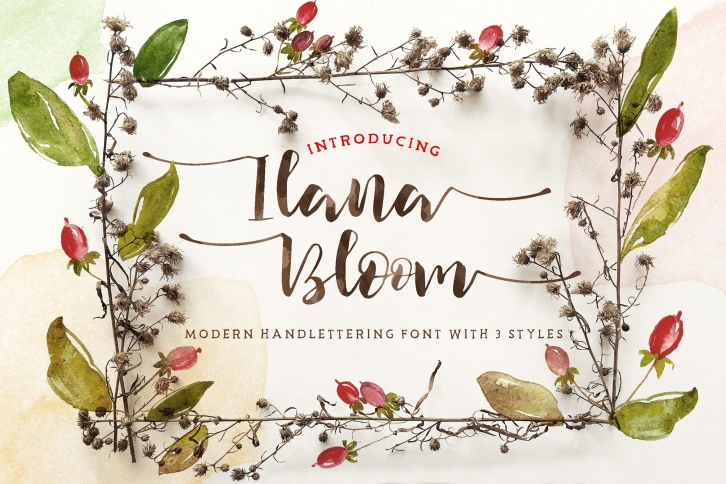
Ilana Bloom is a feminine, modern hand lettering typeface that combines script, swashes and swirl. With a curly and neat style, Ilana Bloom can be easily mixed just to create: your wedding cards and invites, greeting card title, signature for design work, logo and return address and so forth, you decide!
Ilana Bloom, regular, swashes and swirl; comes with accented glyphs and ligature feature.
Ilana Bloom Features:
Natural Brush Stroke
Hand-drawn Font
Ligature
Accented Glyphs